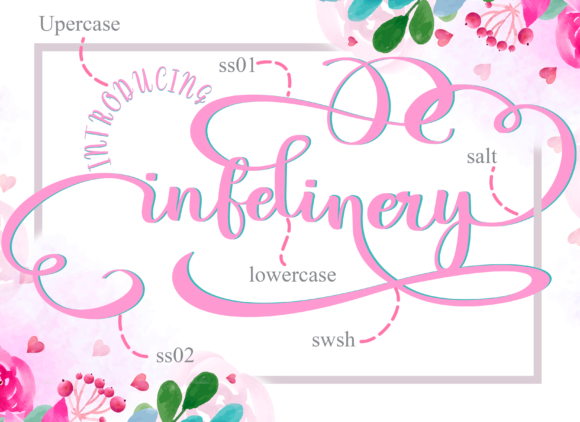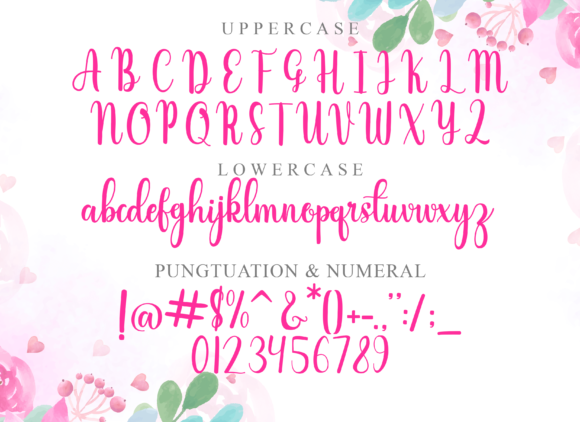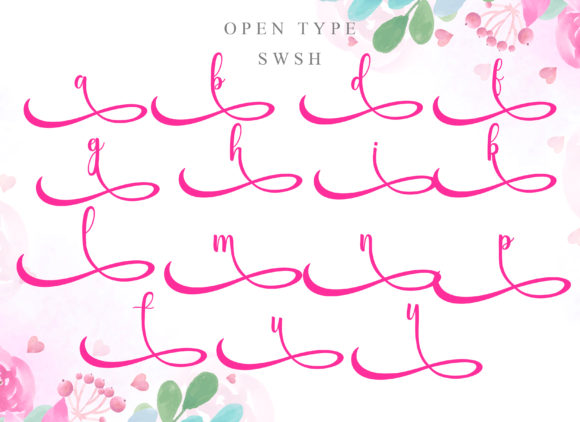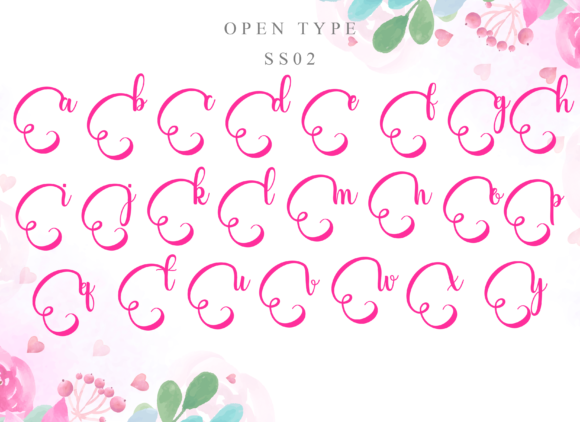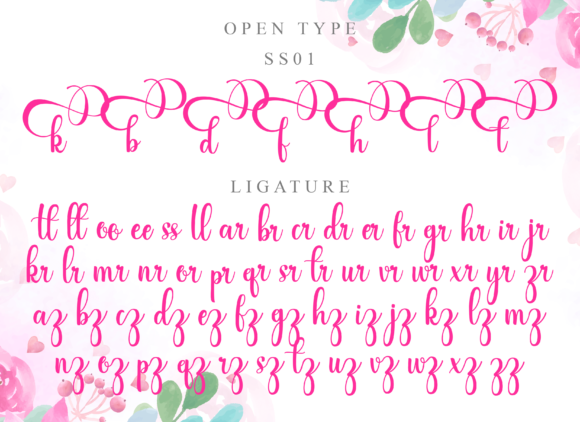
Infelinery Font
Infelinery simplifies elegance into one truly outstanding handwritten font. Infelinery will look outstanding in any context, whether it’s being used on busy backgrounds or as a standalone headline!